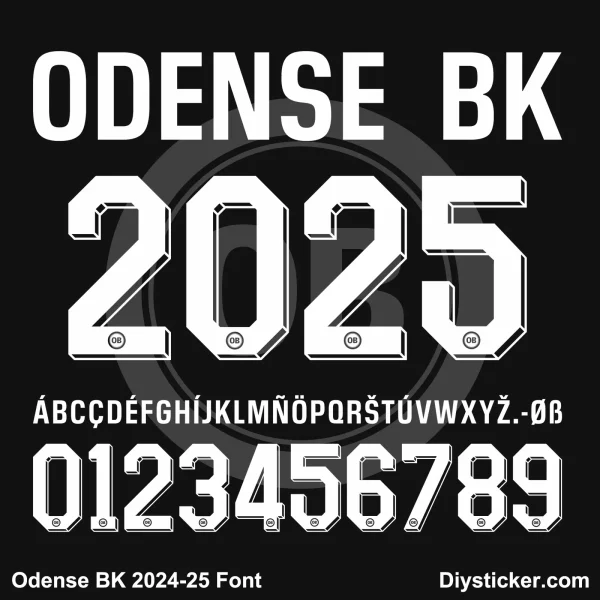
Odense BK 2024-25 Font Download – Official Jersey Style Vector
Elevate Your Designs with the Odense BK 2024-25 Font
If you are a fan of Danish football or a sports graphic designer, the Odense BK 2024-25 Font is a must-have addition to your digital assets. This typography set captures the bold, modern, and powerful aesthetic of Odense Boldklub’s latest kit. Whether you are replicating the look of the players on the pitch or designing custom fan gear, our high-quality font files ensure professional results every time.
Authentic Details and 3D Styling
The Odense Boldklub jersey font download features the unique “inline” and shadow effects that give the numbers a distinct 3D appearance. The characters are designed for maximum legibility from a distance, adhering to the high standards of European football broadcasting. Each number includes the discrete club crest placement at the base, ensuring your custom kits look identical to the official match-worn shirts.
Perfect for Kit Restoration and Fan Projects